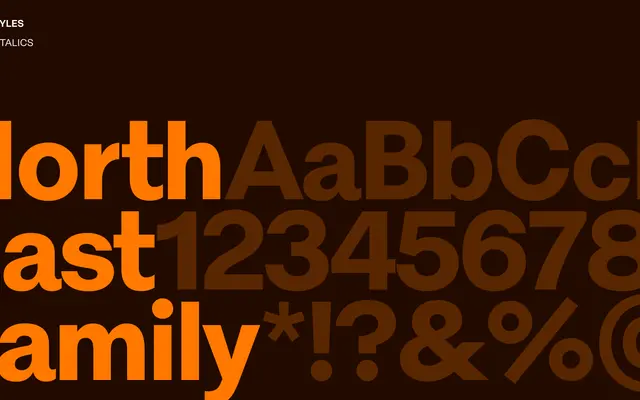
North East
A serif typeface from Copenhagen's Playtype, presented through editorial body text specimens.
North East is a serif from Playtype, the Copenhagen-based type and design studio. The page content is illustrative body text rather than technical specification, so exact weights and style range are unclear from the available material. It sits within Playtype's broader catalogue of considered, design-led typefaces aimed at editorial and brand applications.
Based on the Playtype catalogue context and the name, North East appears to be a serif typeface; without more specific specimen data the subcategory is inferred as transitional serif.